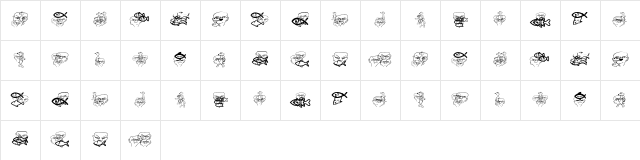
Dream of Picasso Regular
Design Context for Dream of Picasso Typeface
Dream of Picasso is a composed and adaptable typeface that performs quietly and consistently across a wide range of design contexts.
Pro Tip: Use Dream of Picasso in both headline and body roles to test its range before committing to a single application.